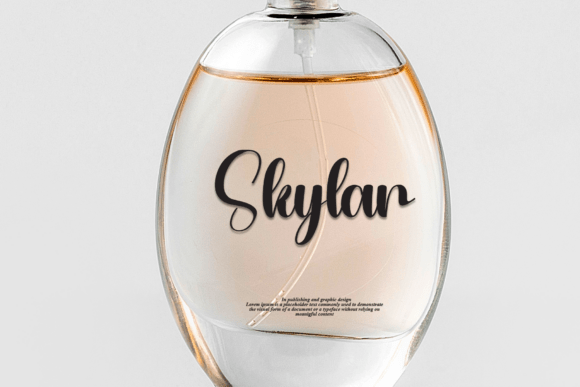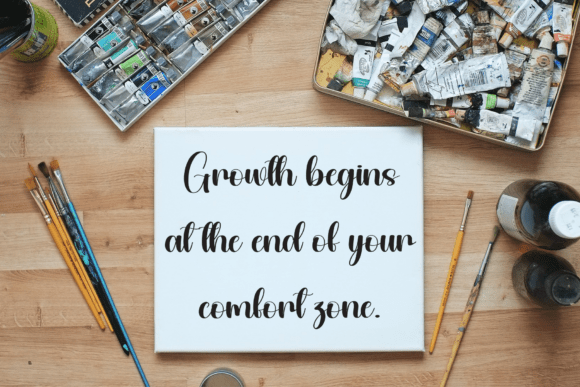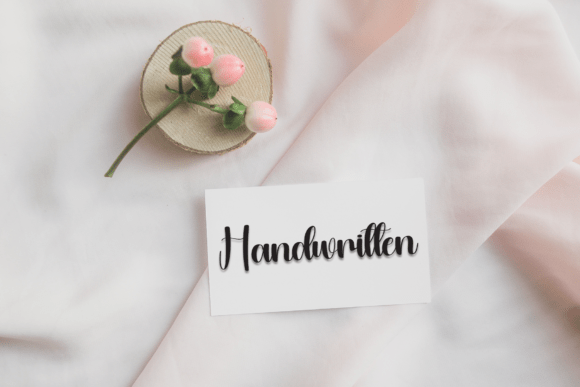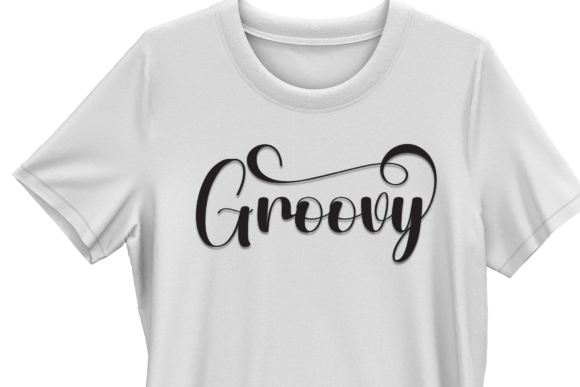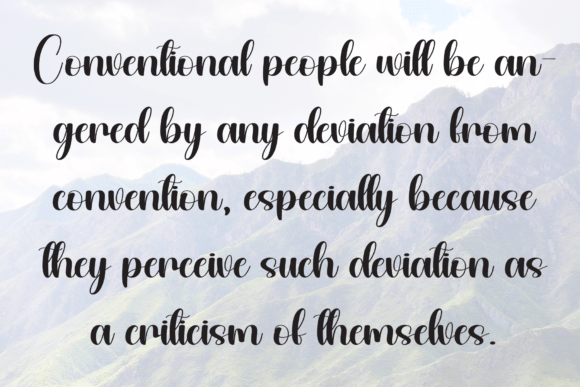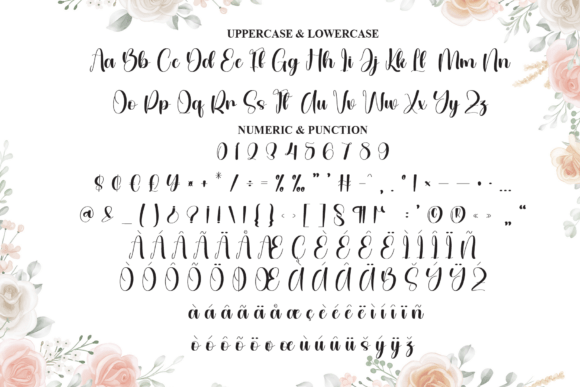
The Elusive Font: A Designer’s Quest for the Perfect Script
I still remember the frustration of working on a project, hours spent searching for the perfect font to capture the essence of my design. My client wanted something stylish, elegant, and artistic – a font that would make their brand stand out. I scoured the internet, tried countless fonts, but nothing seemed quite right. That was until I stumbled upon **Britney Font**. ✨
Britney is a stylish script font that exudes artistic flair and contemporary elegance. With its fluid brush strokes, dynamic curves, and expressive letterforms, it captures the essence of hand-painted calligraphy with a modern twist. In this article, I’ll share my experience with Britney Font, its features, and how to make the most of it in your designs.
An Honest Review of Britney Font
- ✨ Fluid brush strokes: Britney Font’s fluid brush strokes give it a natural, hand-painted feel that’s perfect for designs that require a personal touch.
- ✅ Elegant letterforms: The font’s letterforms are meticulously crafted to convey a sense of sophistication and elegance.
- 🌈 Vibrant character: Britney Font has a unique personality that adds a pop of color and energy to any design.
- 💻 Versatility: This font is ideal for a wide range of design applications, from logos and invitations to packaging and social media graphics.
While Britney Font is an excellent choice for many designs, there are a few things to keep in mind: 🤔
- ⚠️ Legibility at small sizes: Like many script fonts, Britney can be challenging to read at very small sizes. It’s best used at larger sizes or for headlines.
- ⚠️ Limited use in body text: Due to its stylized nature, Britney Font may not be the best choice for lengthy body text. It’s better suited for titles, headings, or short paragraphs.
The Story Behind Britney Font
Britney Font was inspired by the art of hand-painted calligraphy. Its creator, a typography enthusiast, aimed to capture the essence of traditional calligraphy and bring it into the modern era. With its fluid brush strokes and elegant letterforms, Britney Font is a testament to the beauty of handwritten typography.
Q: What type of designs is Britney Font best suited for?
A: Britney Font is ideal for logos, invitations, packaging, and social media graphics that require a touch of elegance and sophistication.
Q: Is Britney Font available in different weights or styles?
A: Currently, Britney Font is available in a single weight. However, the font’s versatility and OpenType features allow for a range of stylistic possibilities.